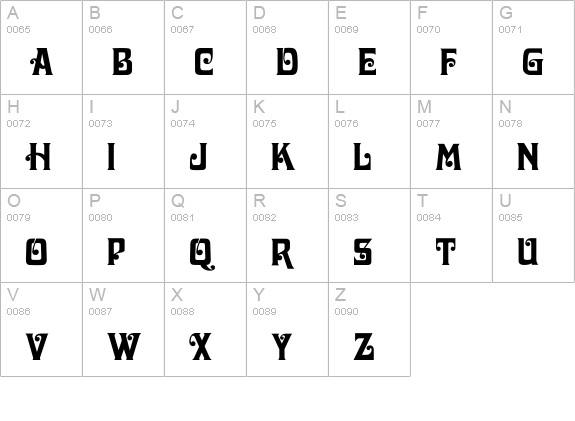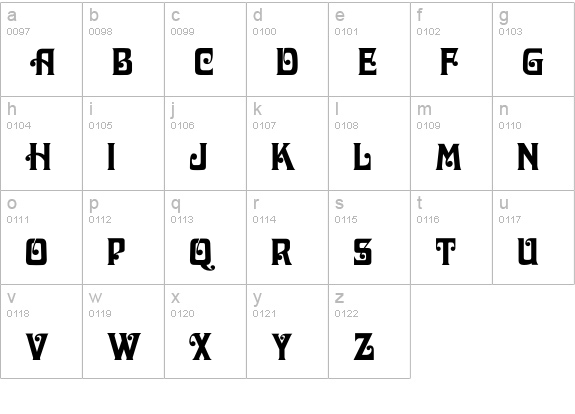
Inagodda Font Details
Introducing Inagodda font, a modern and stylish typeface that is sure to catch the eye and make a lasting impression. This versatile font is perfect for a wide range of design projects, from logos and branding to headlines and social media graphics. Inagodda font features clean lines and a bold, yet elegant aesthetic that will elevate any design. Its unique letterforms have a contemporary feel, making it ideal for both digital and print applications. Whether you're creating a sleek corporate identity or a trendy poster, Inagodda font will help you achieve a professional and polished look. What makes Inagodda font even more impressive is that it is available for free. Yes, you heard that right. You can download this amazing font at no cost from FontsMarket.com. This means that you can enjoy the benefits of this high-quality typeface without breaking the bank. Not only is Inagodda font free, but it also comes with a variety of weights and styles, giving you even more creative freedom. With options ranging from light and subtle to bold and impactful, you can easily customize the font to suit your specific design needs. Inagodda font is not just aesthetically pleasing, but it is also highly legible, ensuring that your message is conveyed with clarity and professionalism. Its well-crafted letterforms and attention to detail make it a reliable choice for any project, whether it's for web or print. So why wait? Don't miss out on the opportunity to enhance your designs with the elegance and versatility of Inagodda font. Download it for free today at FontsMarket.com and experience the endless creative possibilities it has to offer.